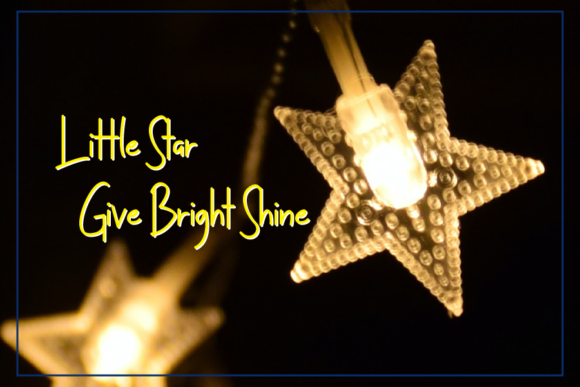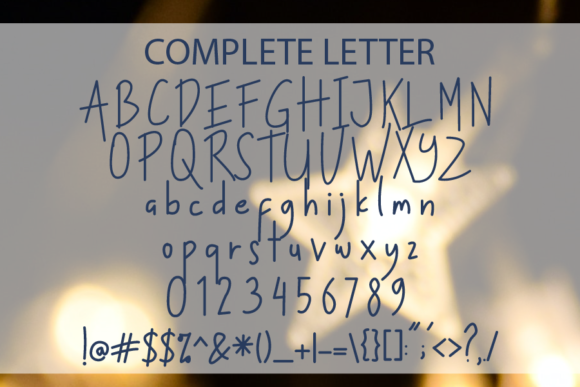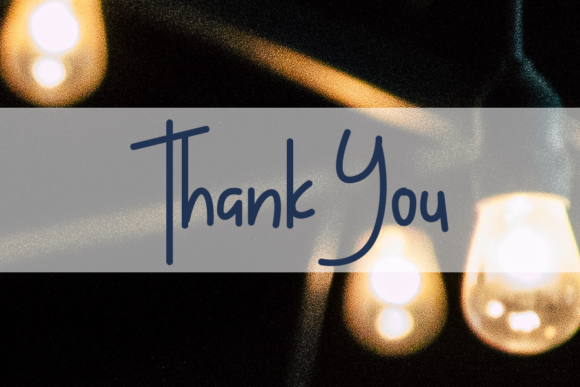
Fun Goose Font – Free Download
Introduction to Fun Goose Font
Fun Goose is a sweet and friendly handwritten font.
Key Features of Fun Goose Font
Why Choose Fun Goose Font?
Fun Goose Font offers exceptional quality and versatility, making it a valuable addition to your design toolkit. Whether you’re creating for personal projects or commercial use, Fun Goose Font delivers professional results.